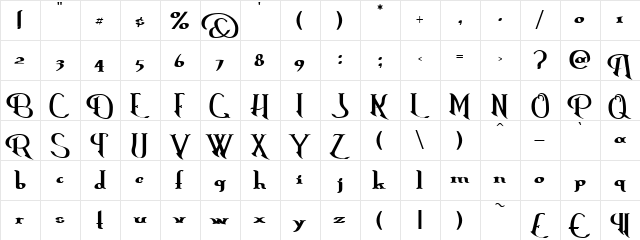
Erasmus Normal
Design Context for Erasmus Typeface
Erasmus is a composed and adaptable typeface that performs quietly and consistently across a wide range of design contexts.